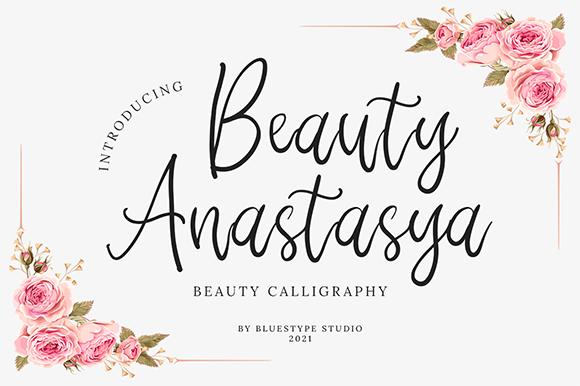
Beauty Anastasya Font Description
Beauty Anastasya is a lovely handwritten font. Fall in love with its incredibly versatile style and use it to create gorgeous wedding invitations, beautiful stationary art, eye-catching social media posts, and much more!